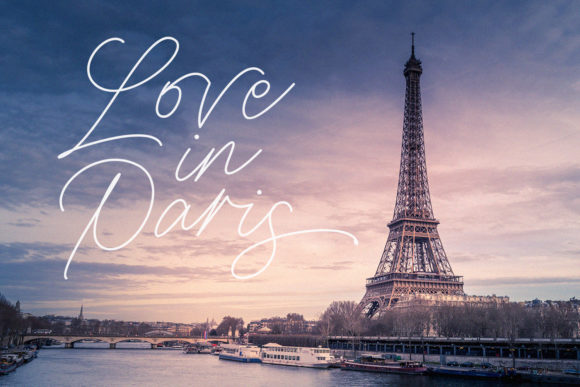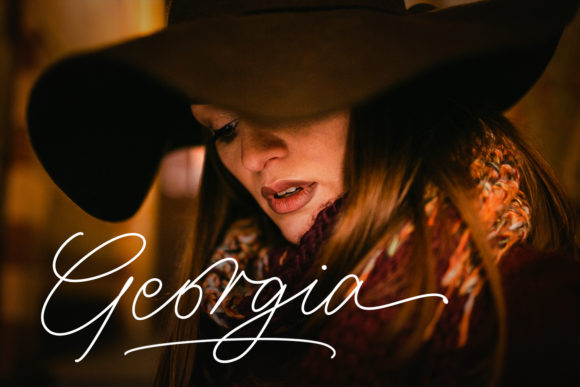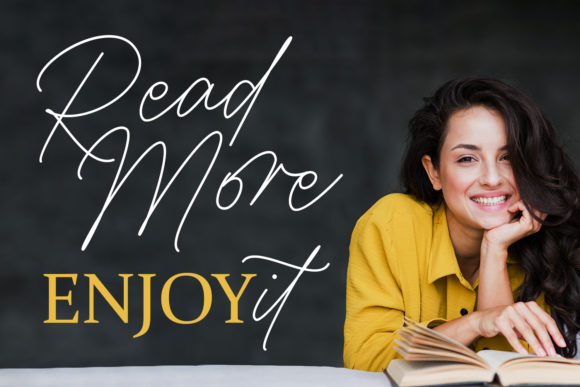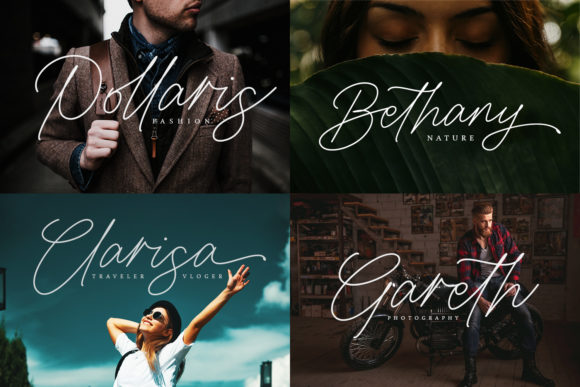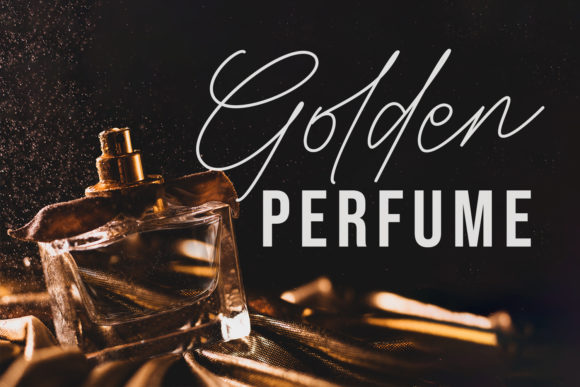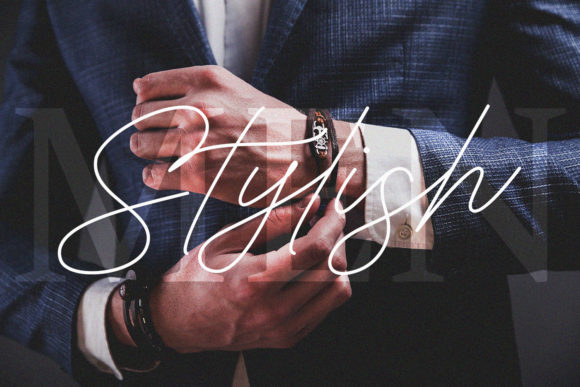
Introducing Claresta Font: Elevate Your Designs with Elegance
Are you on the hunt for a font that adds a touch of sophistication and delicacy to your designs? Look no further than Claresta Font, a stunning handwritten font that is sure to become your go-to choice for a wide range of projects. With its clean, thin, and smooth vibe, Claresta is the perfect addition to any design, from elegant branding and packaging to beautiful stationery and crafts.
The Beauty of Claresta Font
Claresta Font boasts a delicate flow that is both visually striking and effortlessly elegant. Its thin lines and smooth curves create a beautiful, fluid look that is perfect for designs that require a touch of refinement. Whether you’re working on a logo, a wedding invitation, or a craft project, Claresta Font is sure to impress.
One of the standout features of Claresta Font is its PUA (Private Use Area) encoding. This means that you can access all of the glyphs and swashes with ease, giving you complete creative control over your designs. With PUA encoding, you can easily insert special characters, ligatures, and other unique elements that will take your designs to the next level.
With Claresta Font, the design possibilities are endless. Here are just a few ideas to get you started:
- Branding and Packaging: Use Claresta Font to create elegant logos, business cards, and packaging that will set your brand apart.
- Wedding and Event Stationery: Add a touch of romance and sophistication to your wedding invitations, save-the-dates, and other event stationery with Claresta Font.
- Crafts and DIY Projects: Claresta Font is perfect for a wide range of craft projects, from handmade cards and gift tags to scrapbooking and journaling.
- Digital Designs: Use Claresta Font to create beautiful digital designs, including social media graphics, blog headers, and more.
Why Choose Claresta Font?
So why should you choose Claresta Font for your next design project? Here are just a few reasons:
- Unique and Versatile: Claresta Font is a unique and versatile font that can be used for a wide range of design projects.
- Elegant and Refined: With its delicate flow and clean lines, Claresta Font adds a touch of elegance and refinement to any design.
- Easy to Use: Claresta Font is PUA encoded, making it easy to access all of the glyphs and swashes.
- High-Quality Design: Claresta Font is a high-quality font that is designed to deliver exceptional results.
Get Creative with Claresta Font
In conclusion, Claresta Font is a beautiful and versatile font that is perfect for a wide range of design projects. With its delicate flow, clean lines, and PUA encoding, Claresta Font is sure to become a staple in your design toolkit. Whether you’re a professional designer or a crafty DIY enthusiast, Claresta Font is a must-have font that will help you create stunning designs that will leave a lasting impression.